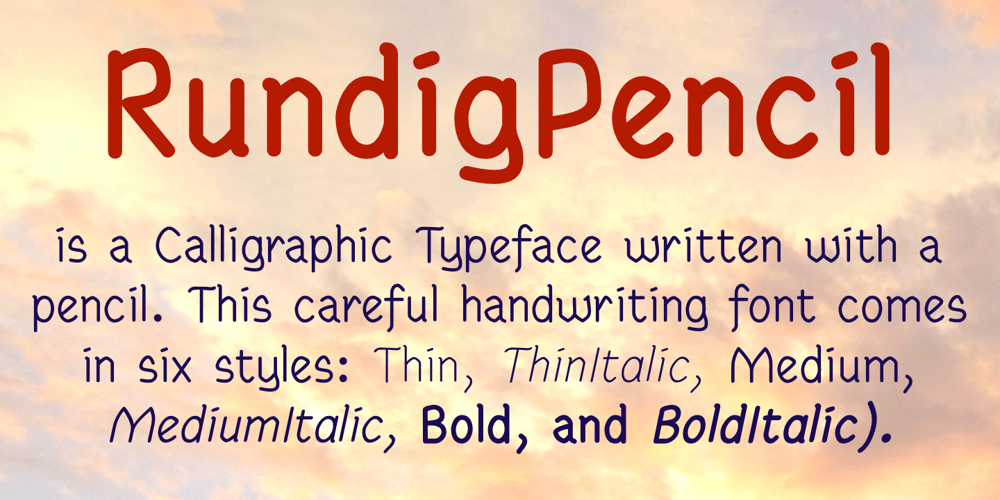
Rundig Pencil Font Family was designed by Robert Schenk and published by Ingrimayne Type. Rundig Pencil contains 6 styles and family package options. RundigPencil has a semi-informal but very neat and rigidly upright handwritten look. It comes in three weights, each with italics. The calligraphic typeface Rundigsburg is based on similar letter shapes.